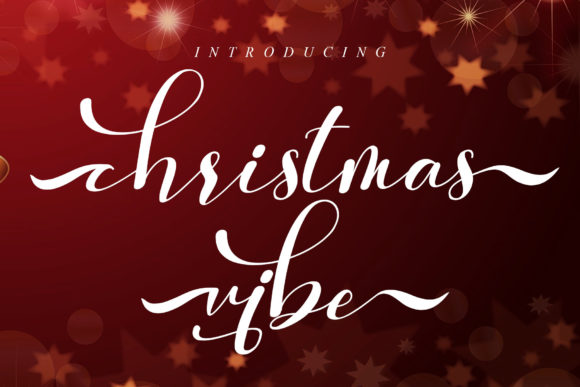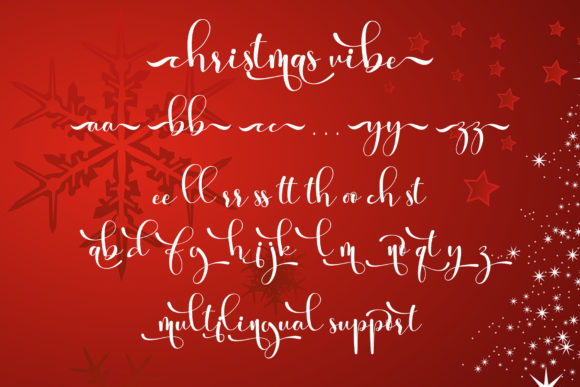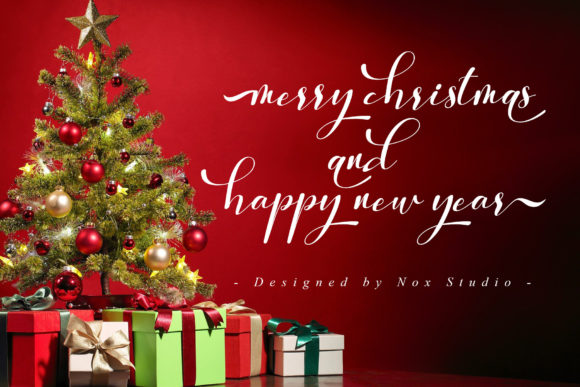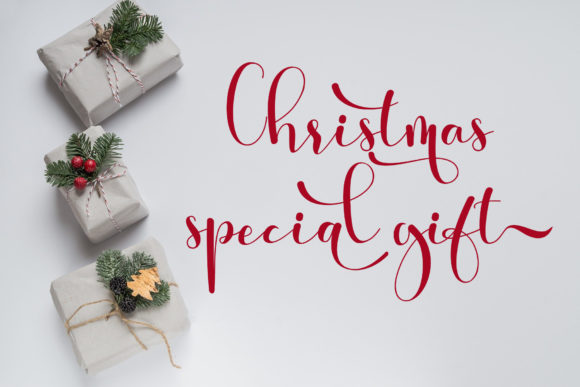
About The Christmas Vibe Font
The Christmas Vibe is a dazzling and timeless handwritten font. It is the best choice for creating eye-catching logos, branding, and quotes. This font is PUA encoded which means you can access all of the glyphs and swashes with ease!